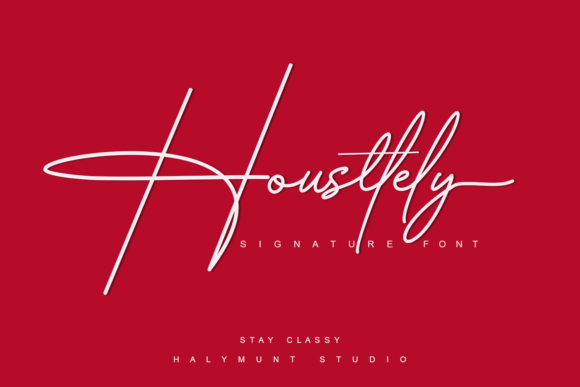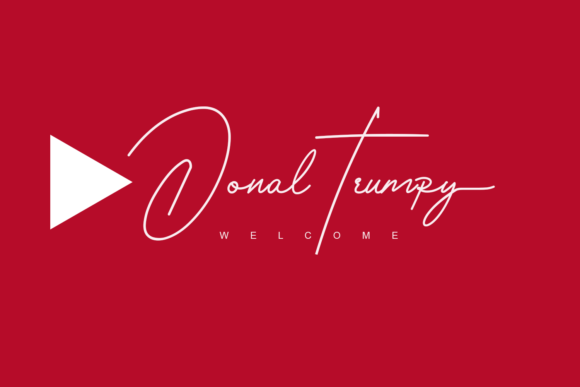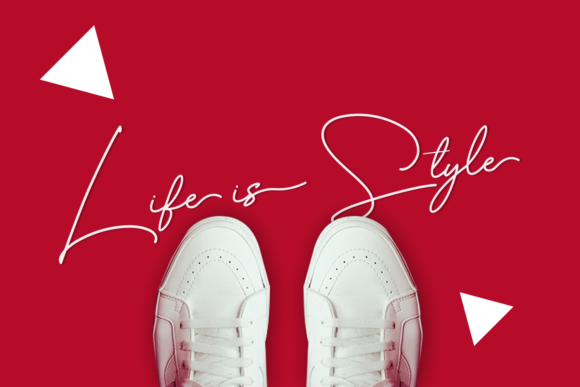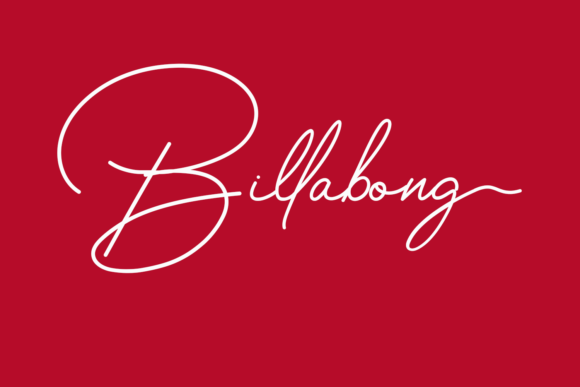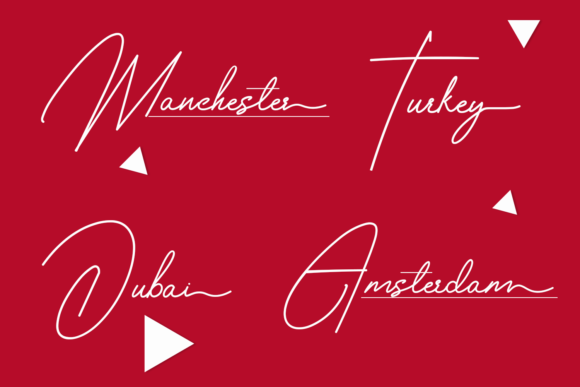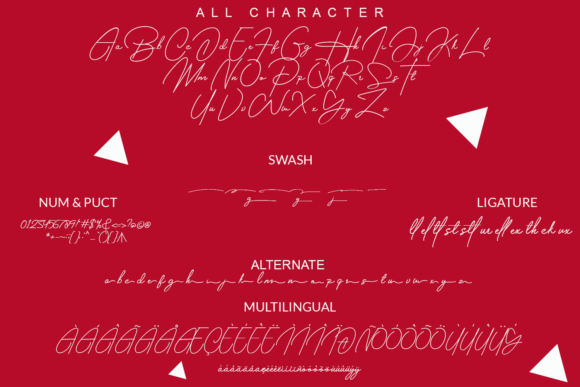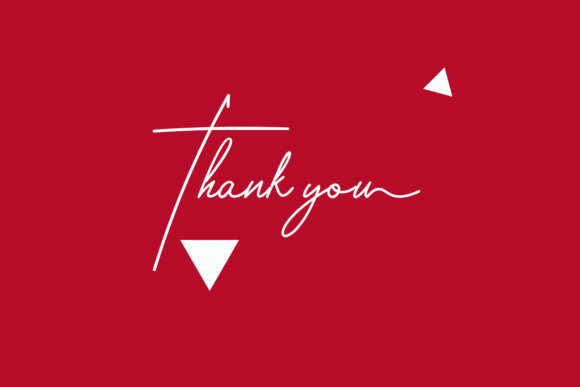
HomeScript FontsHousttely Font Script Fonts Housttely Font FacebookXPinterestWhatsApp Housttely Font Poster 2 Housttely Font Poster 3 Housttely Font Poster 4 Housttely Font Poster 5 Housttely Font Poster 6 Housttely Font Poster 7 Housttely Font Poster 8 Housttely Font Poster 9 About Housttely Font Housttely is a thin and authentic script font with a unique vibe. DOWNLOAD NOW People also explored Haruka Font Snowflake Font Design System D Marielle Signature Font Altarimoon Font Simple Thich Font Country Curtain Font Inclination Font Rallista Font 271 0 TagsHousttely Font Previous articleSoniya FontNext articleStrong Table Font LEAVE A REPLY Cancel reply Comment: Please enter your comment! Name:* Please enter your name here Email:* You have entered an incorrect email address! Please enter your email address here Website: Save my name, email, and website in this browser for the next time I comment. Personal Use Free Omellia Personal Use Free Read more about this font Letter Hanger Personal Use Free Read more about this font Befindisa Personal Use Free Read more about this font Kitchen Blue Personal Use Free Read more about this font BLOG The 10 Best Handwriting Fonts to Add Personality to Your Designs 10 of the Best Handwriting Fonts for Adding Personality to Your Designs There will undoubtedly be no other better choice than handwriting fonts to give... Fonts That Capture the Spirit of New York City To increase your work productivity, choose the most readable fonts. How to Install and Use Fonts on Windows, macOS, and Web Projects